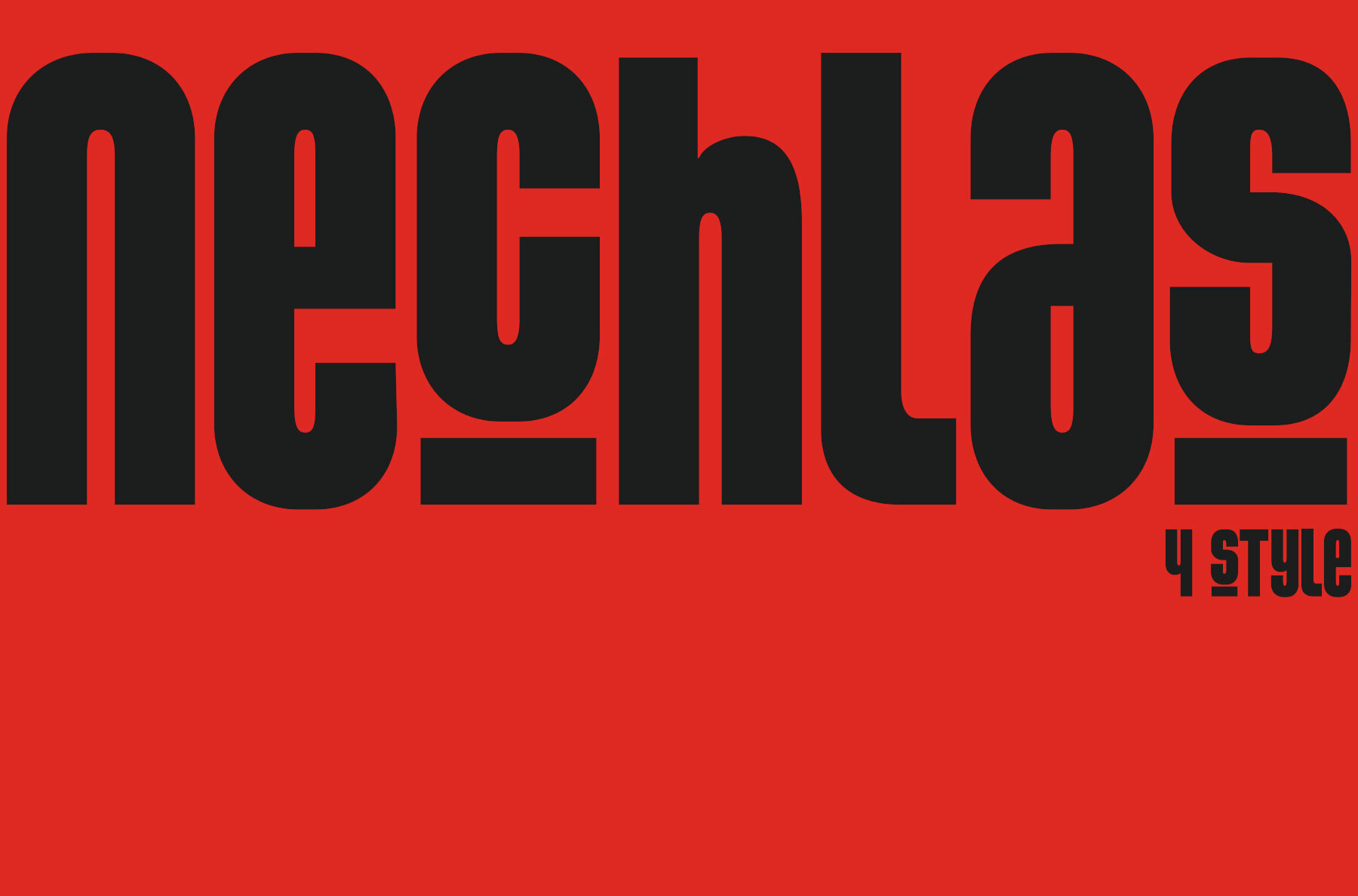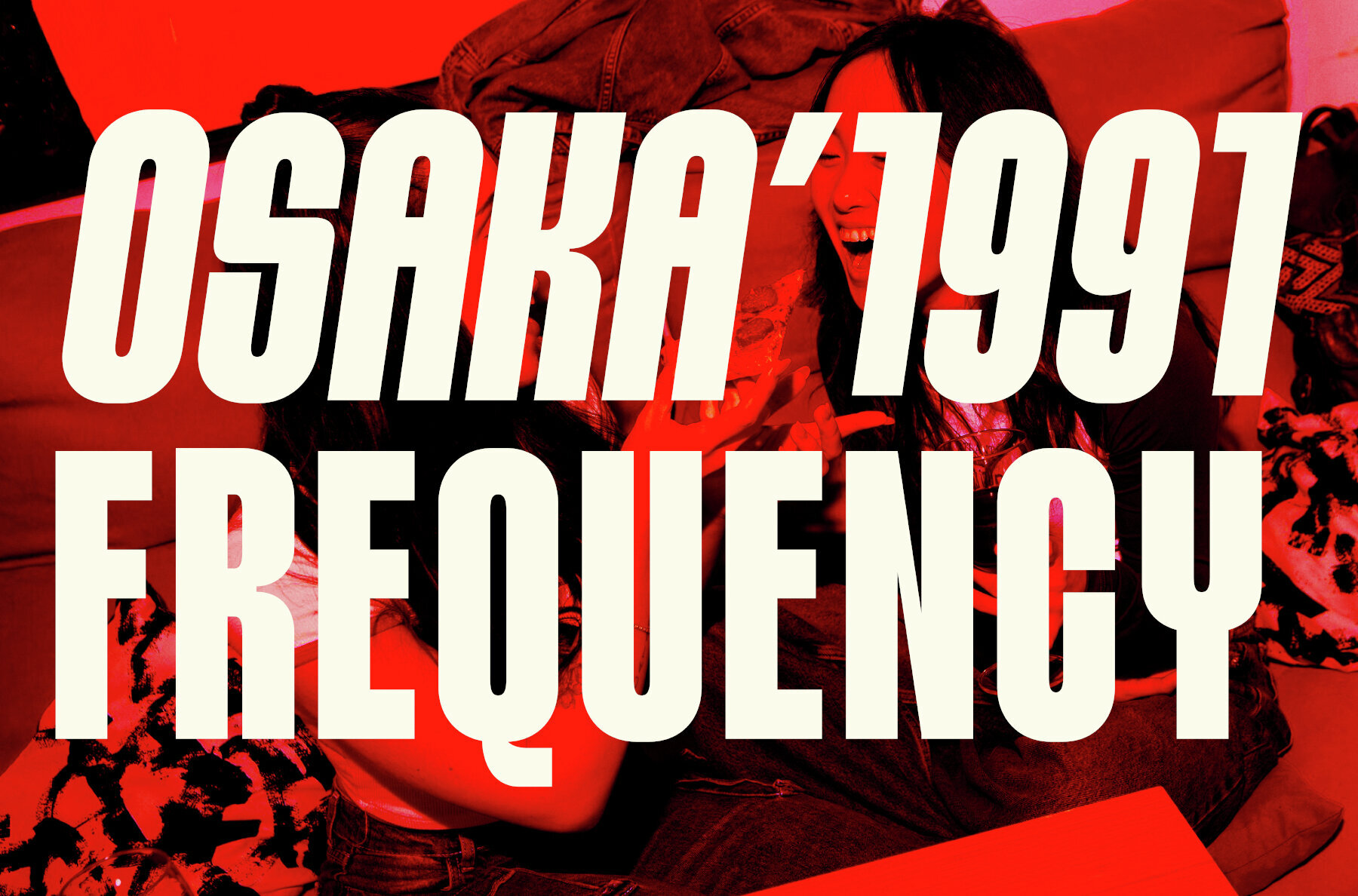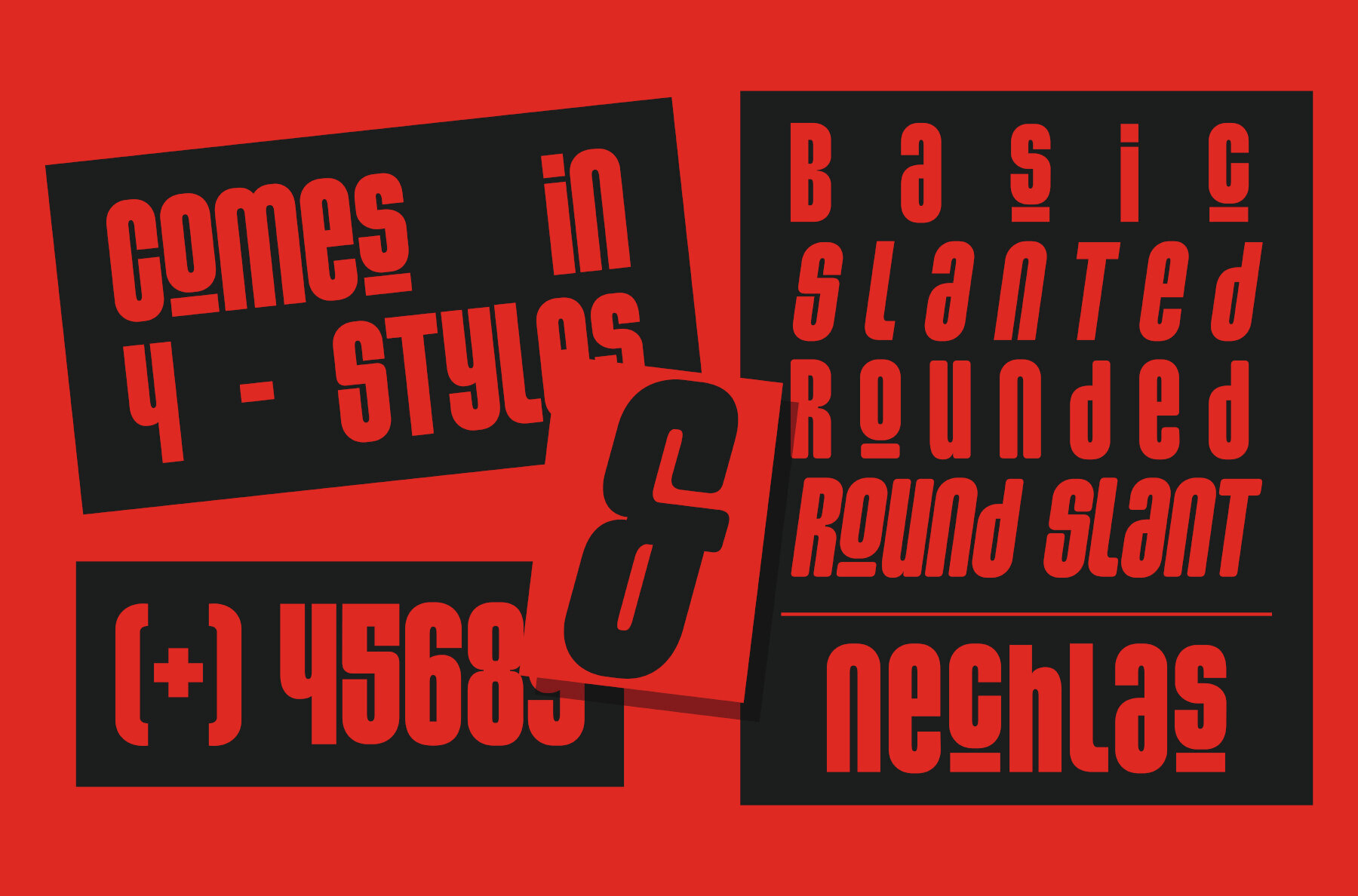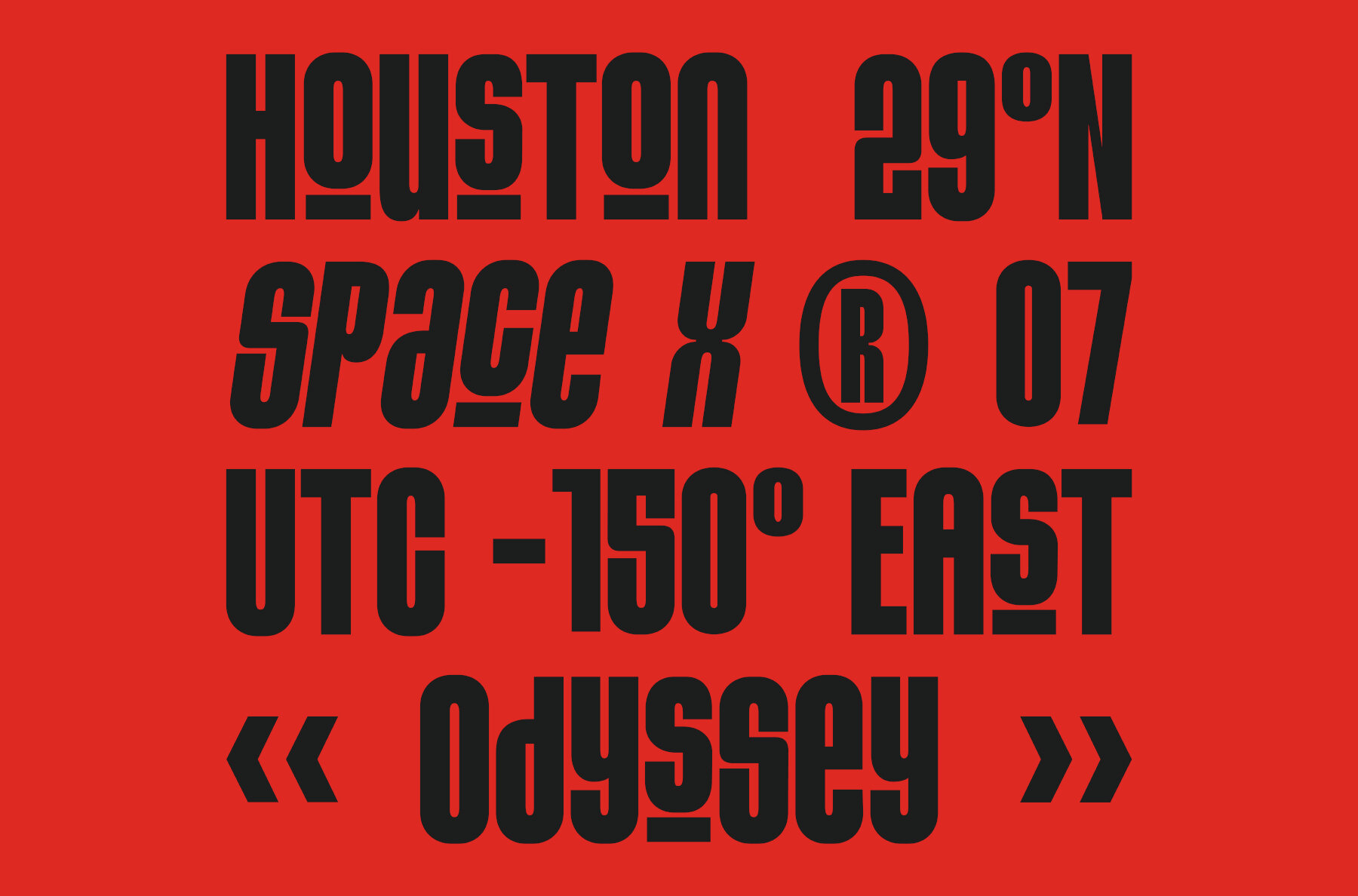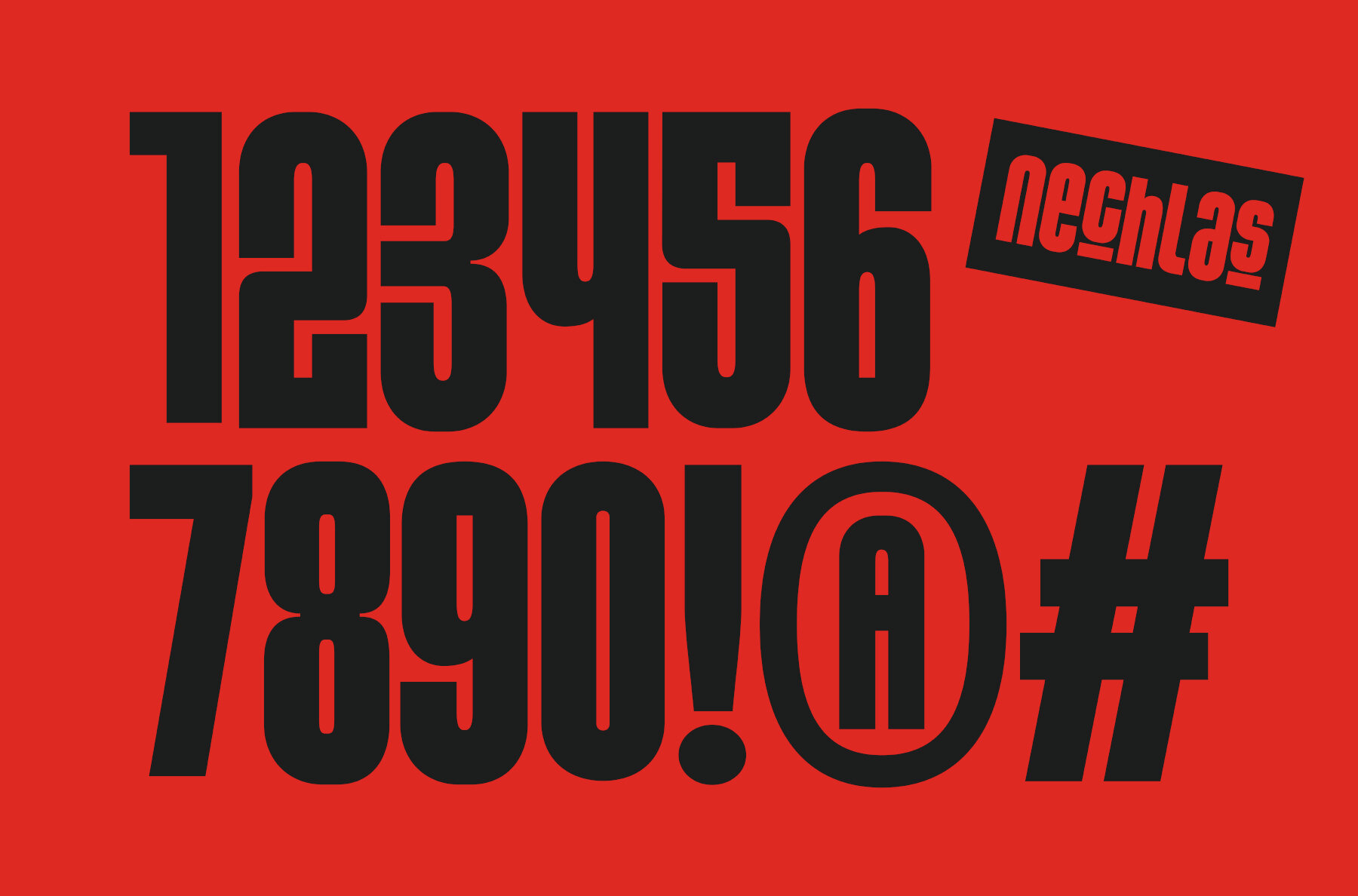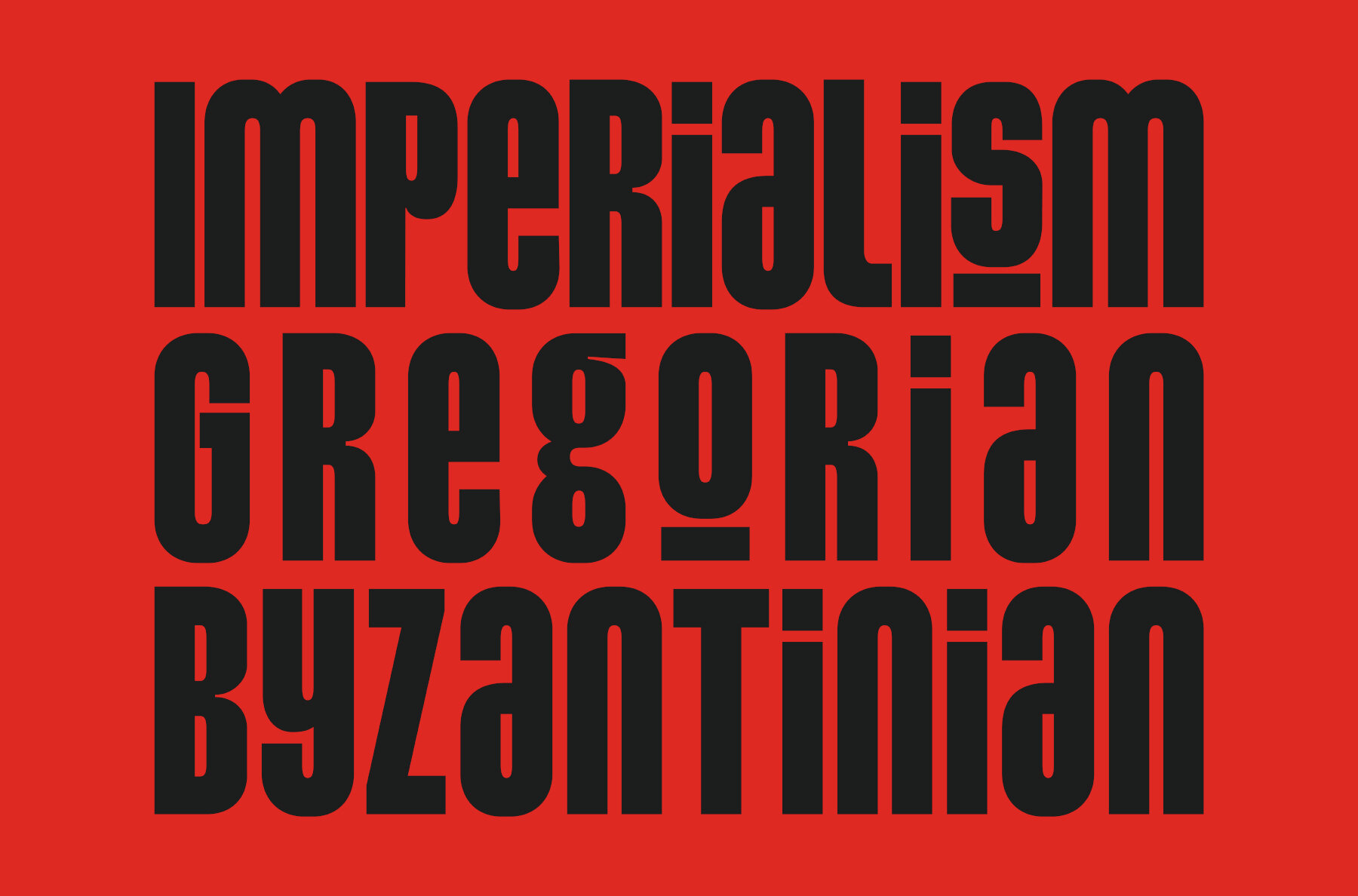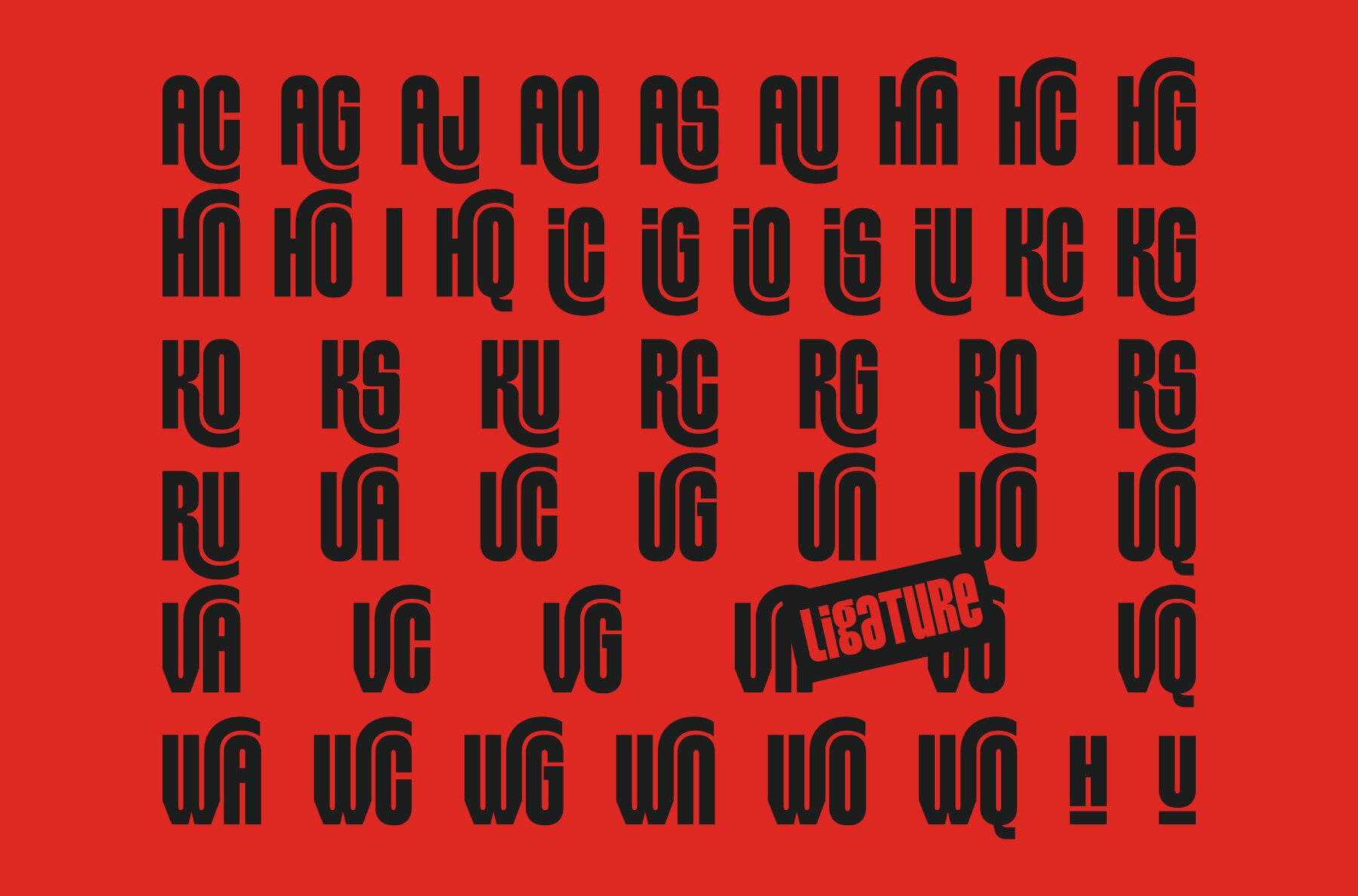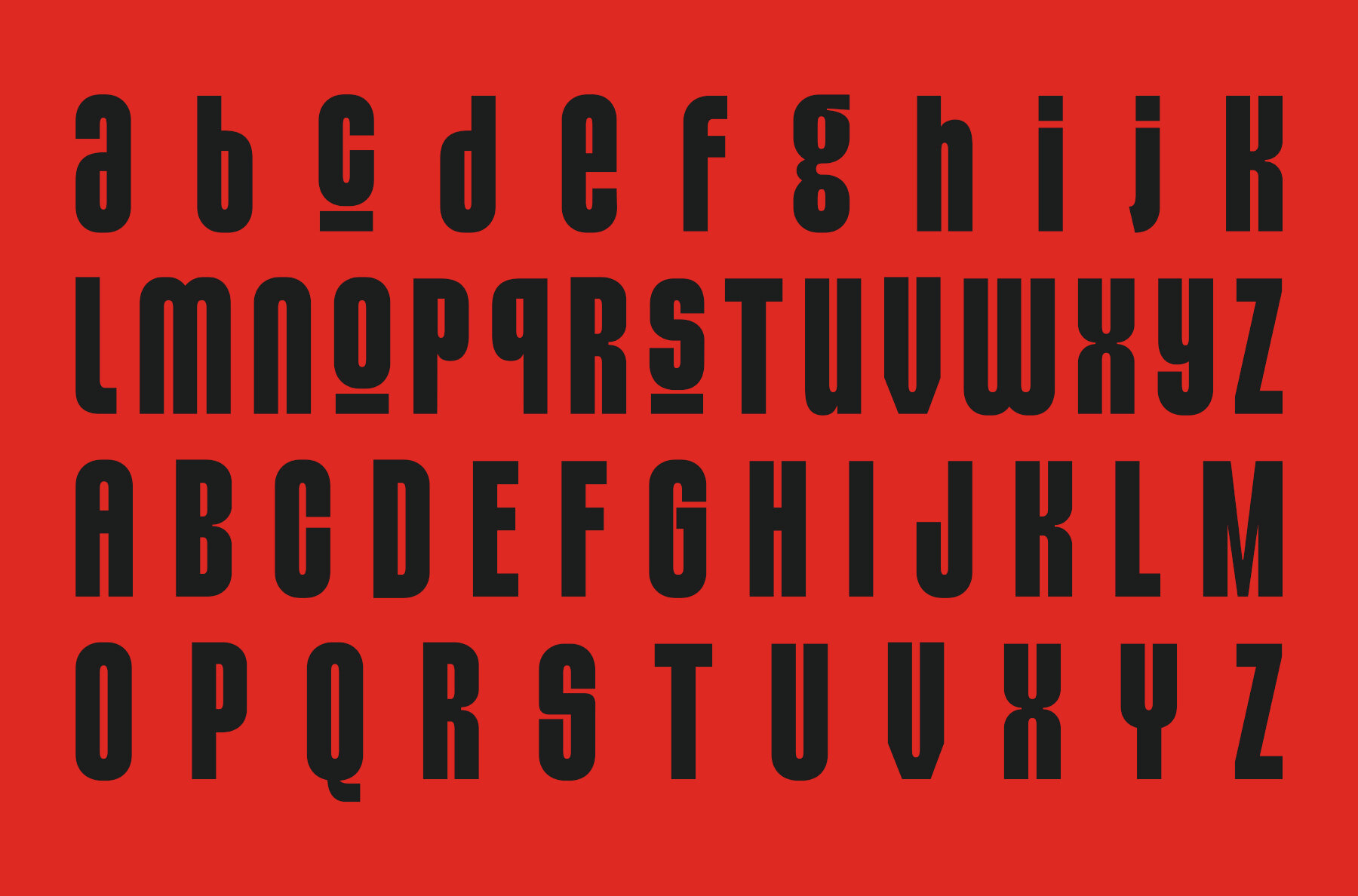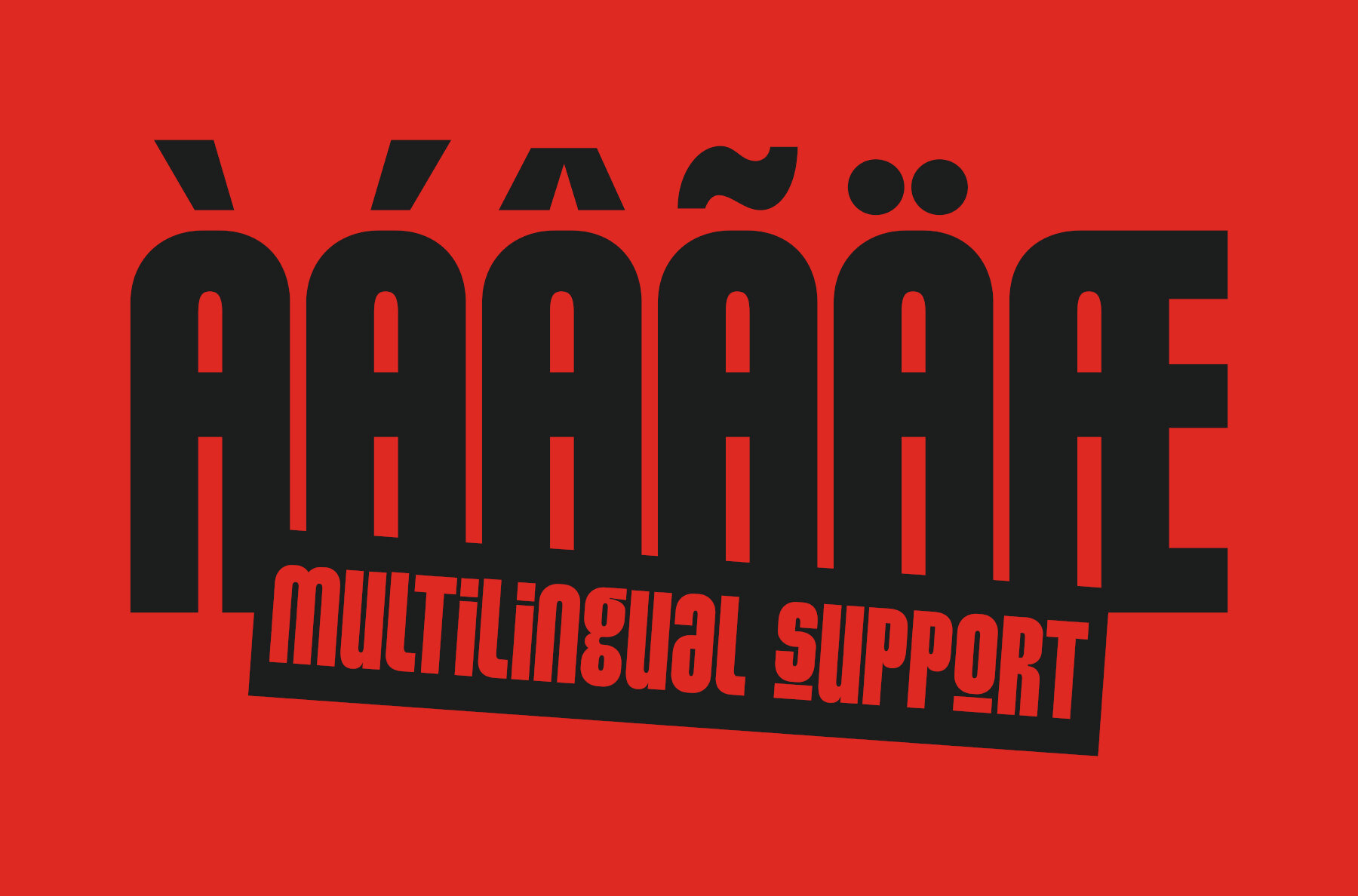
Nechlas Font
Nechlas stands out with a bold, condensed letterform and distinct stencil-inspired horizontal breaks. Its modular construction creates a digital, industrial look—one that feels fast, blocky, and firmly rooted in modern technology. Rounded external contours mix with blocky interiors to generate a sense of movement and strength. When set in high-contrast black on red, Nechlas has a demanding presence that commands attention. Designed for projects that need to make a statement, this font thrives in applications from sports branding and sci-fi posters to streetwear and gaming. Its sharp geometry and aggressive styling speak to speed and energy, making it an effective choice for headlines, automotive design, or any context where impact matters. The Nechlas family offers practical options to expand typographic flexibility, providing solutions for diverse creative needs.Nechlas: High-Impact Futurist Display Font